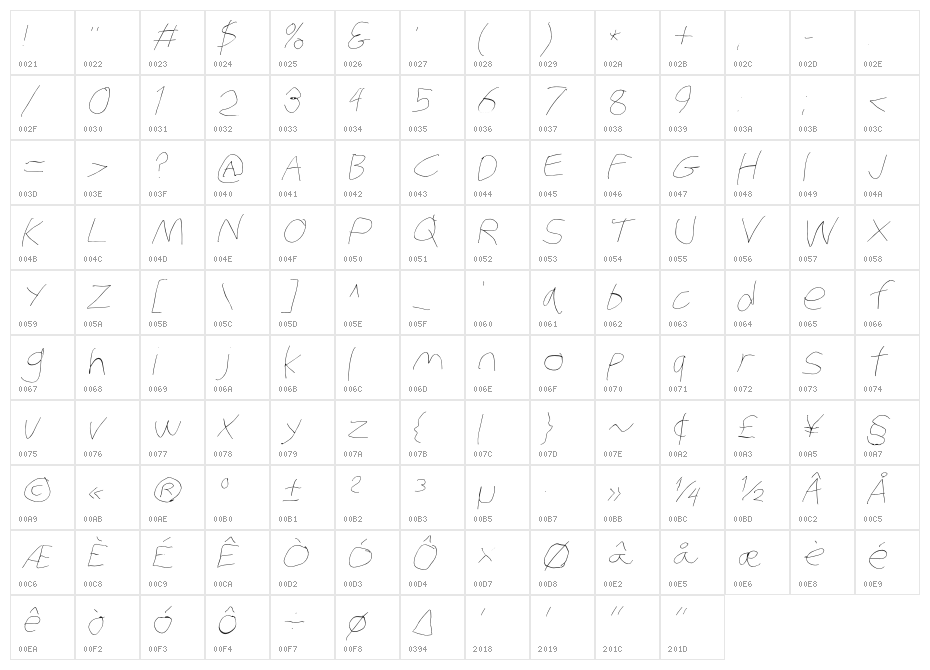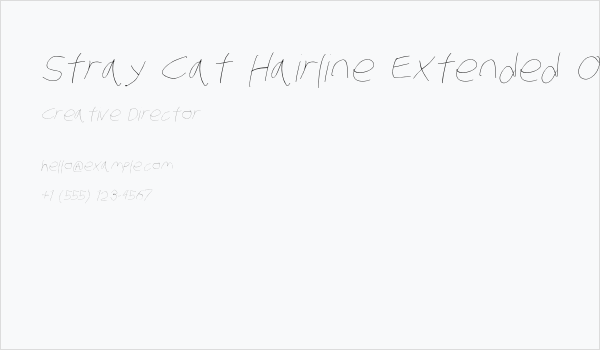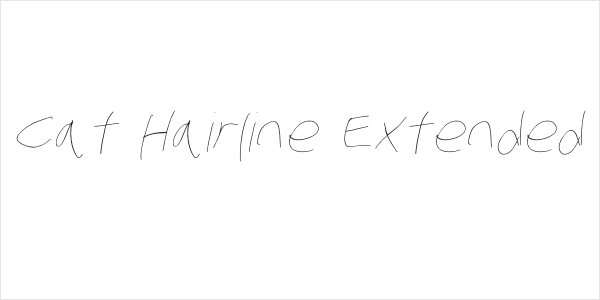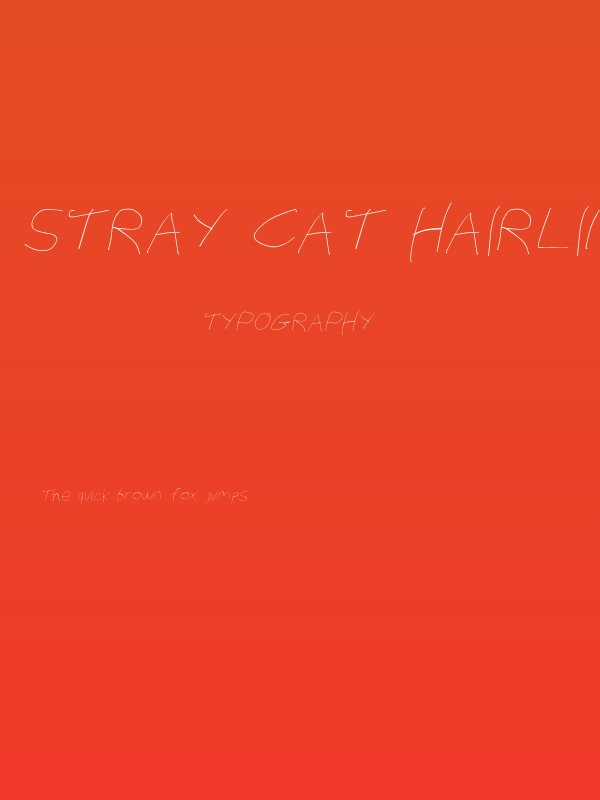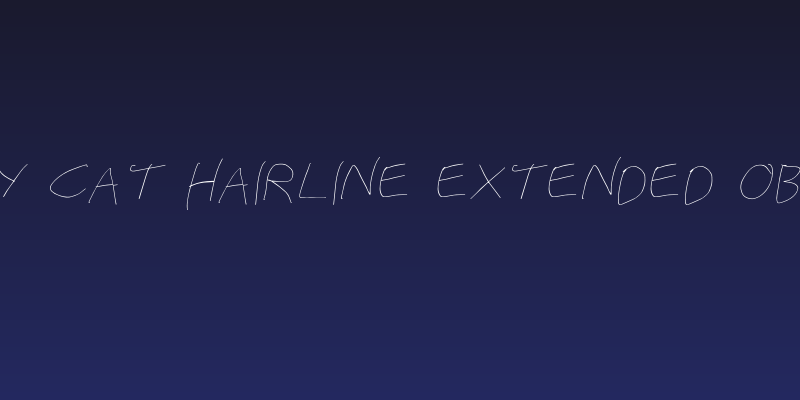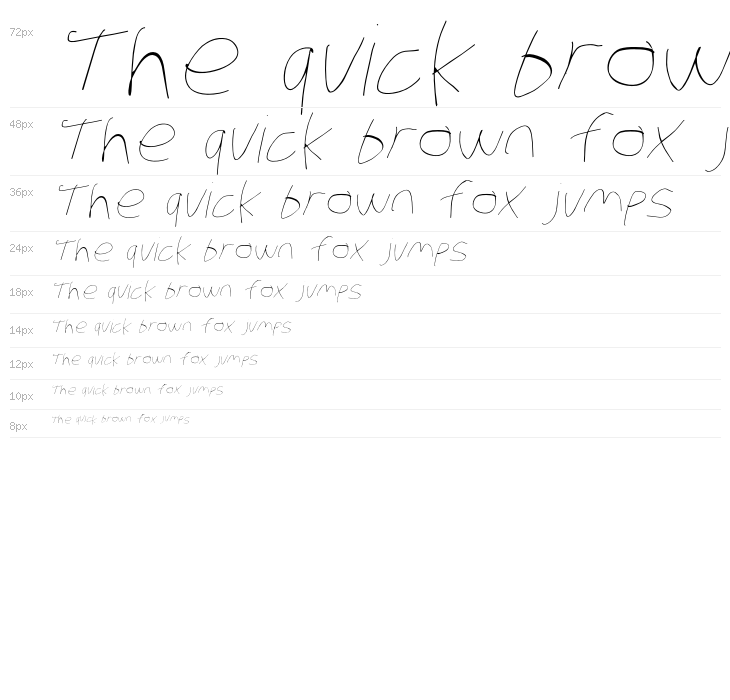
Stray Cat Hairline Extended Oblique Font
Stray Cat Hairline Extended Oblique Description
This font features a delicate, hand-drawn style with a light and airy appearance. The characters are elongated and slightly tilted, giving an oblique effect that adds a sense of movement and fluidity. The strokes are thin and consistent, creating a hairline effect that is both elegant and understated. The overall design is casual yet sophisticated, making it suitable for projects that require a personal touch. The spacing between characters is wide, enhancing readability while maintaining the font's unique style.
| Use Case | Logos, Artistic projects, Personal invitations |
| Proposed Projects | Ideal for personal invitations, greeting cards, artistic projects, and branding that requires a unique, handwritten feel. |